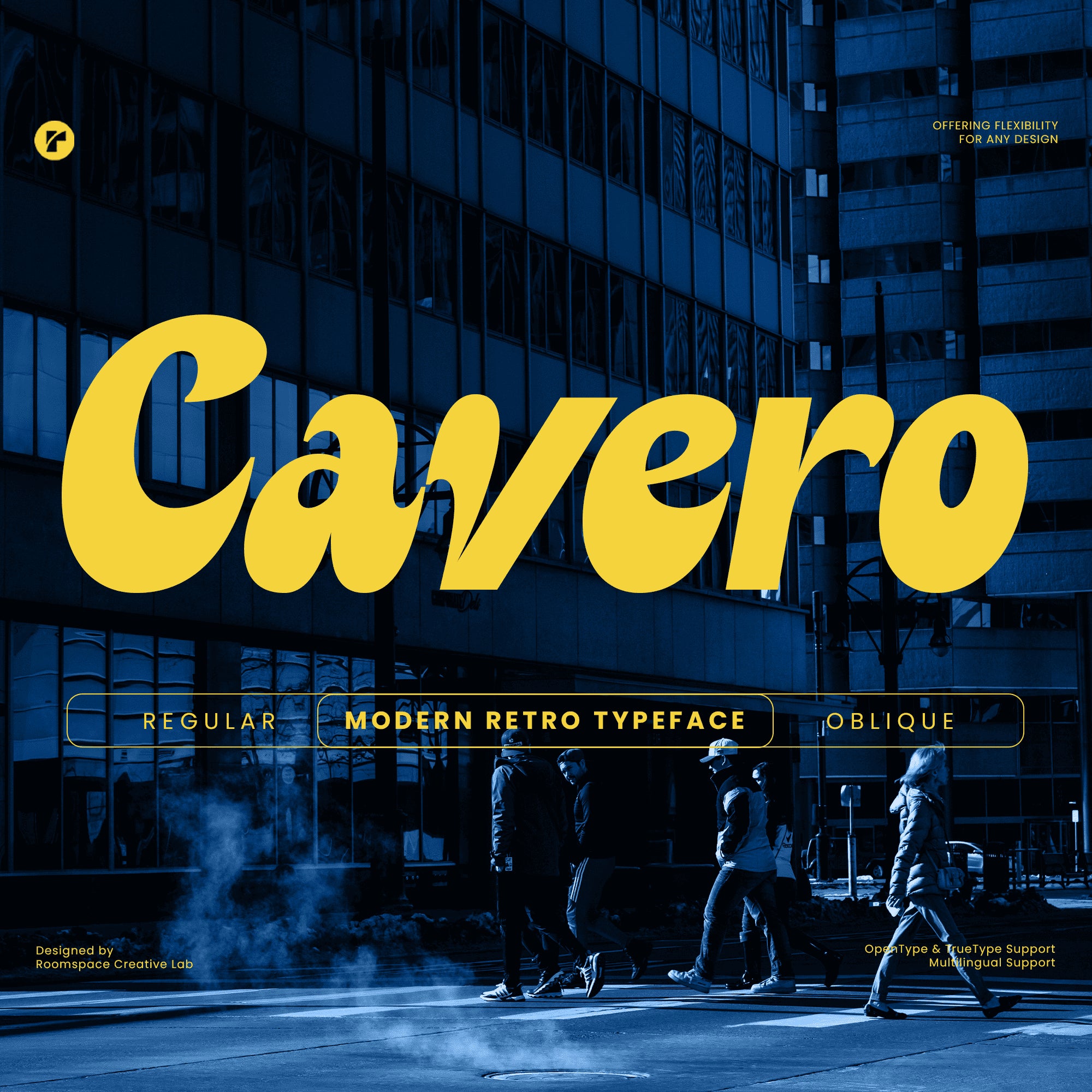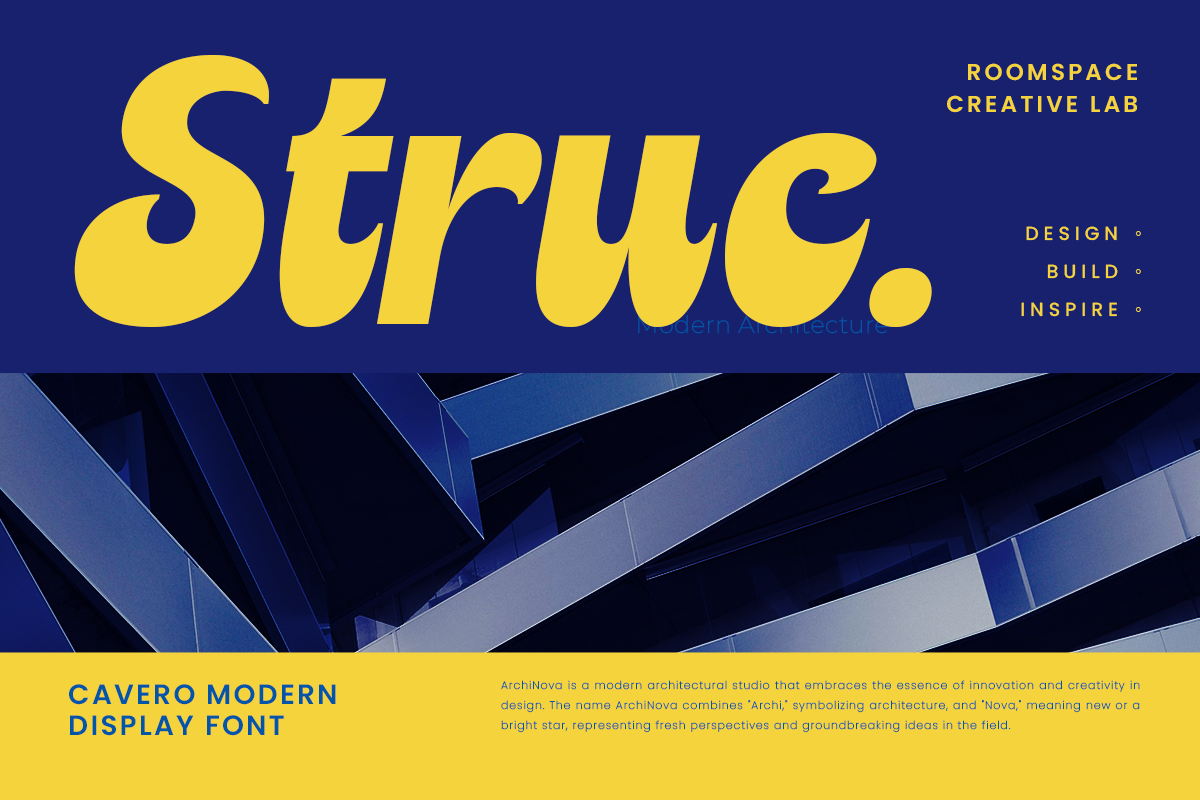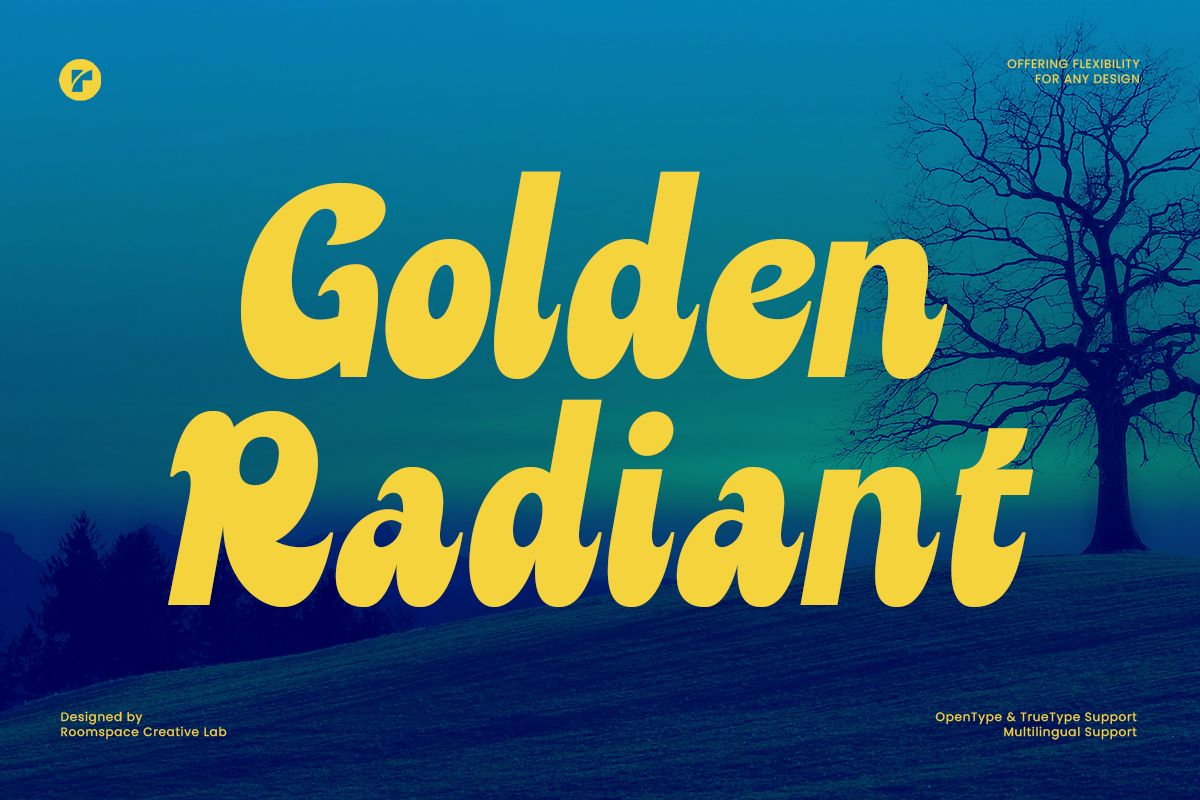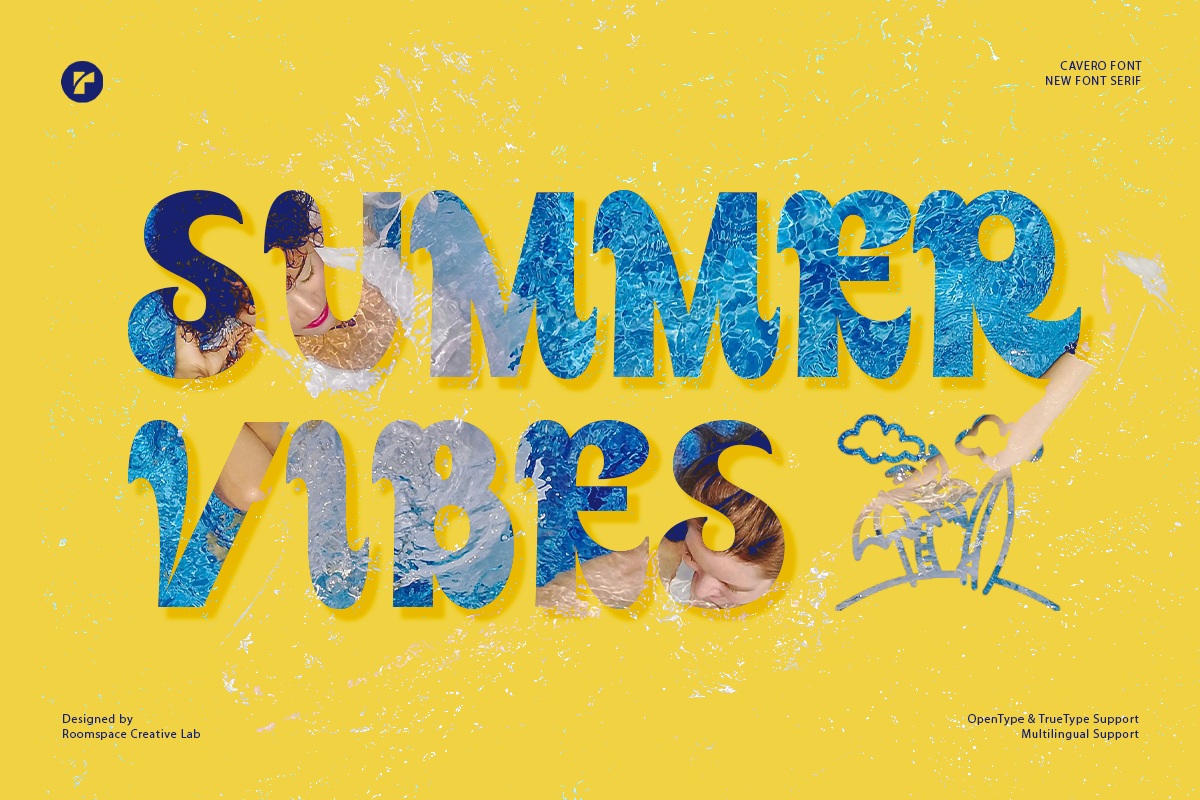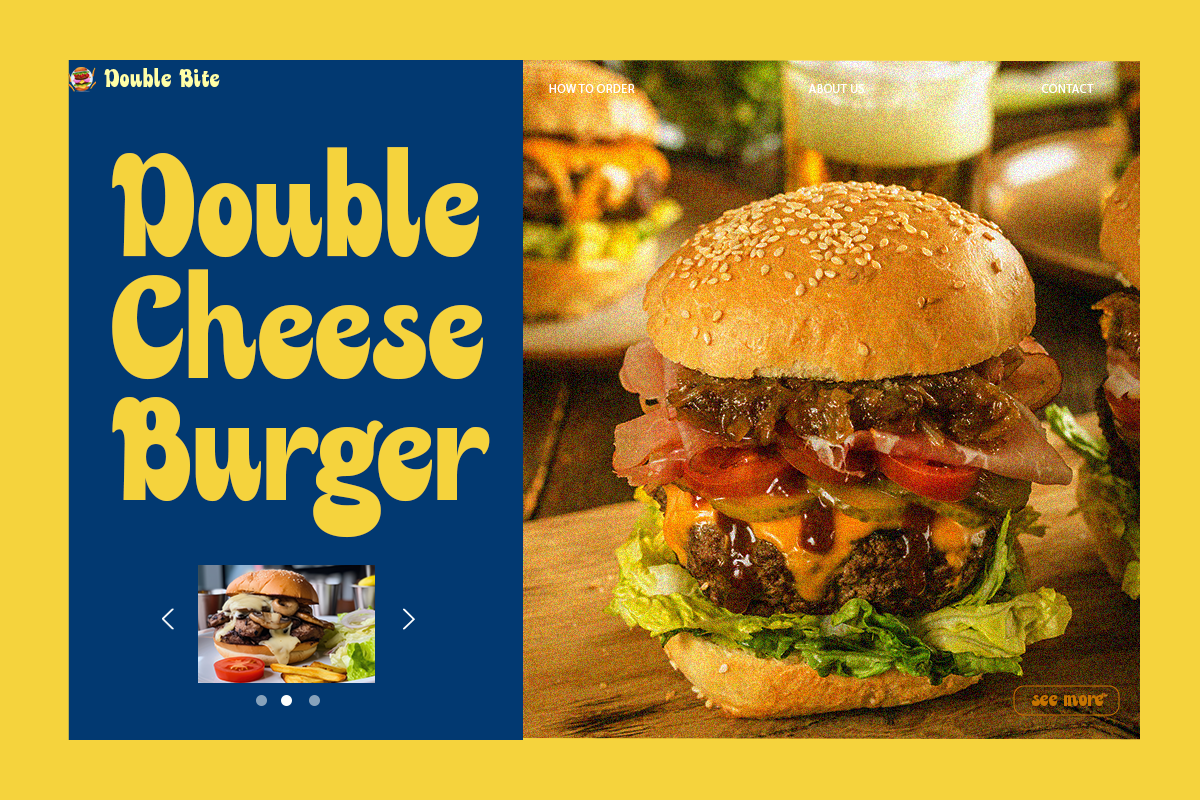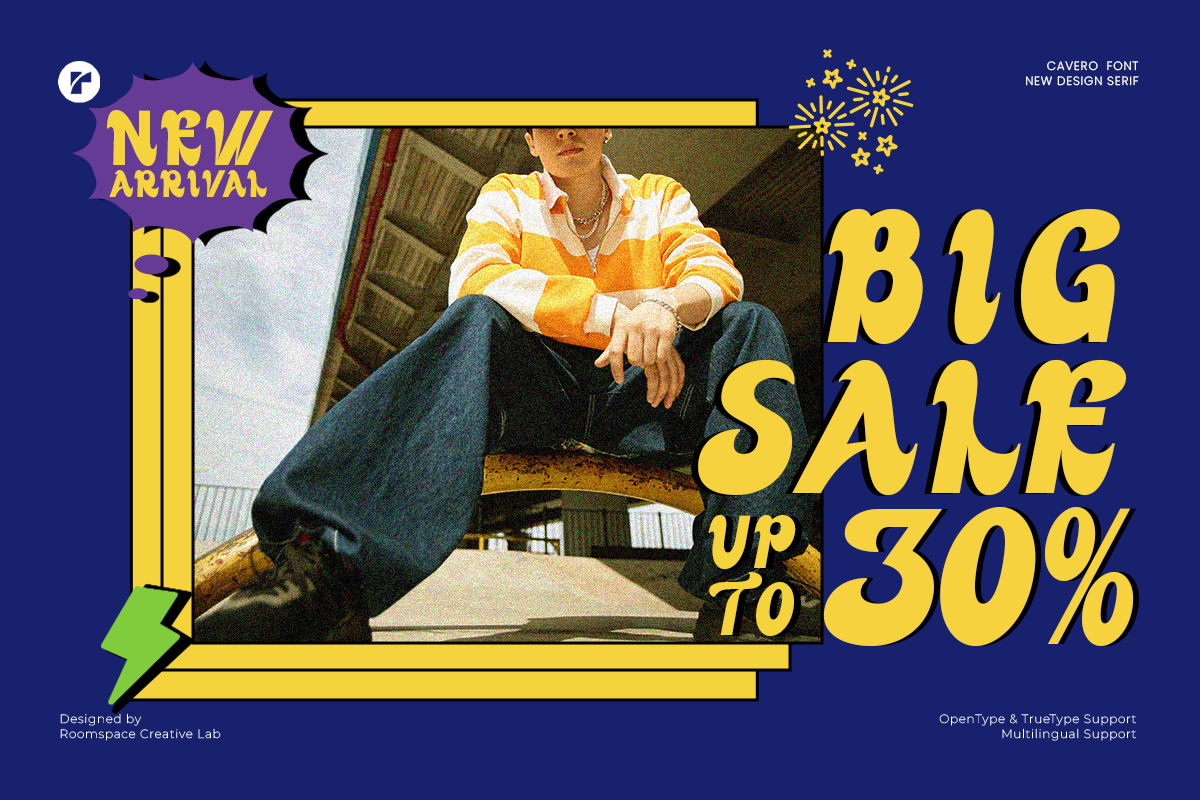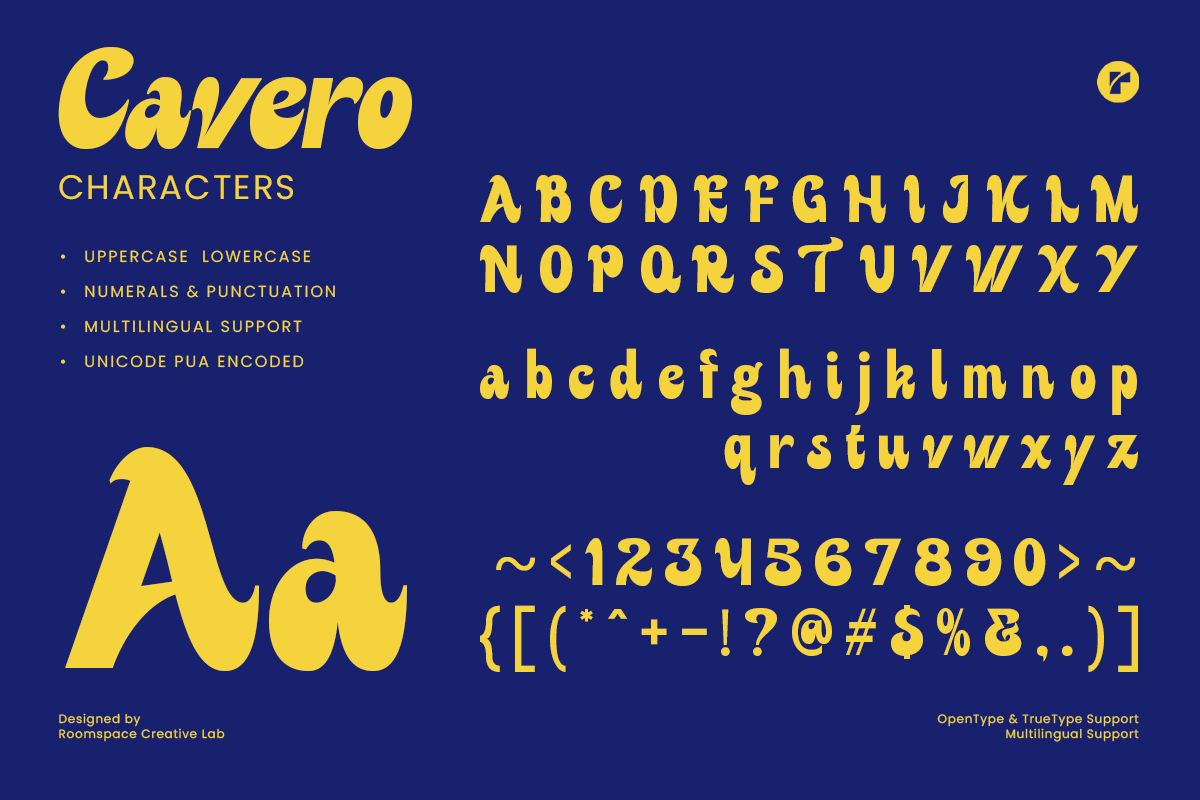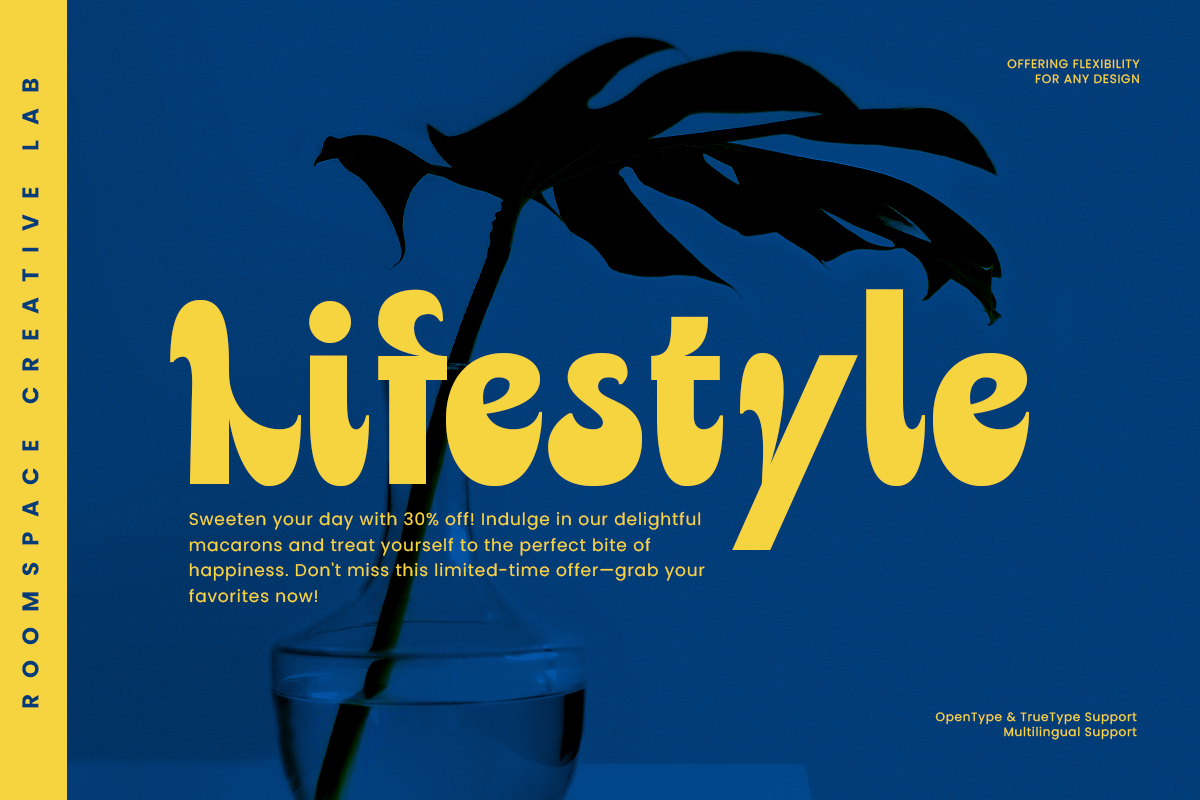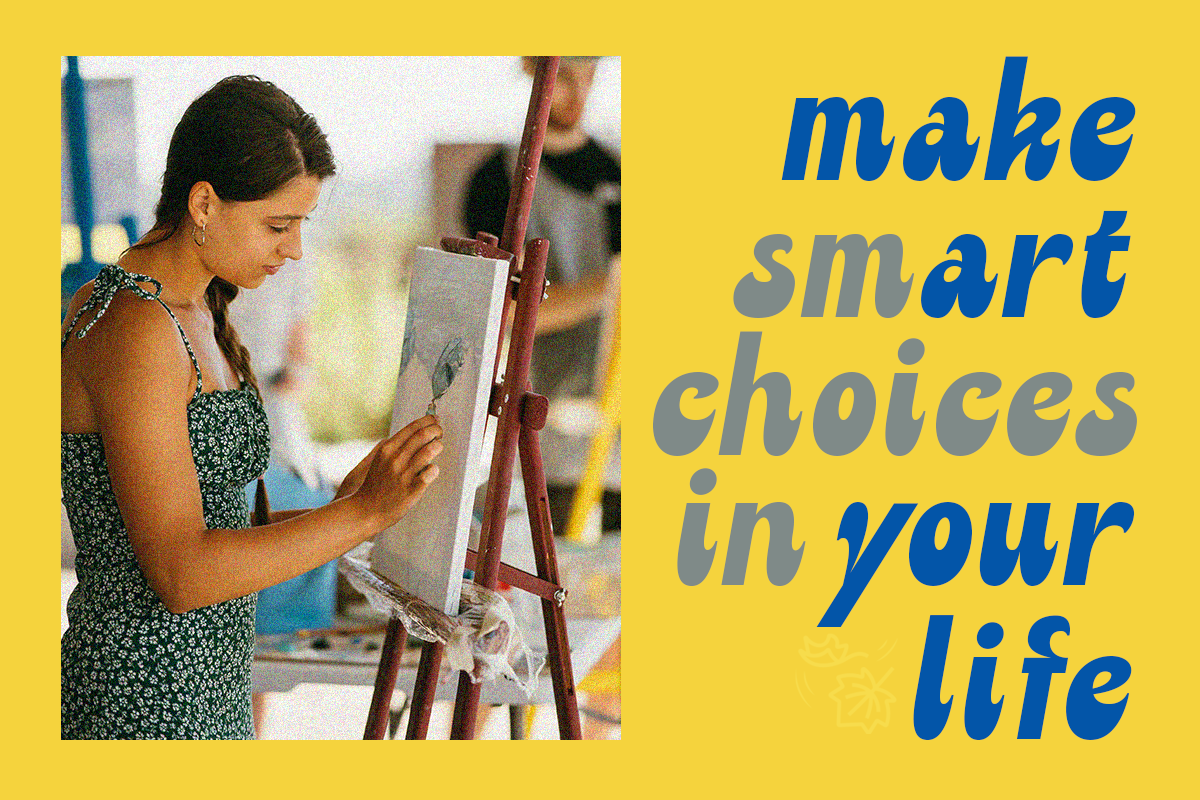
Cavero – Modern Retro Display Font
Cavero is a bold modern retro typeface that captures the spirit of vintage design with a contemporary twist. Its smooth curves and confident shapes create a friendly yet powerful look, ideal for designs that need a strong personality. Cavero brings nostalgic flair back to life while maintaining the clarity and balance needed for modern layouts. Designed with versatility in mind, Cavero includes Regular and Oblique styles that adapt seamlessly across creative applications. Each letterform is carefully balanced for excellent readability and dynamic energy, making it perfect for both digital and print designs. With its smooth kerning, multilingual support, and OpenType features, Cavero offers a professional edge to any project. Whether you’re designing posters, logos, packaging, or social media graphics, Cavero delivers a distinctive retro-modern character that stands out. It’s the perfect choice for creative brands, lifestyle products, and bold typographic statements. Add Cavero to your font library and bring timeless retro energy into your next design.
Cavero is a bold modern retro display font that features smooth curves and confident shapes, designed for excellent readability and dynamic energy. It includes Regular and Oblique styles, multilingual support, and OpenType features, making it suitable for a variety of creative applications.